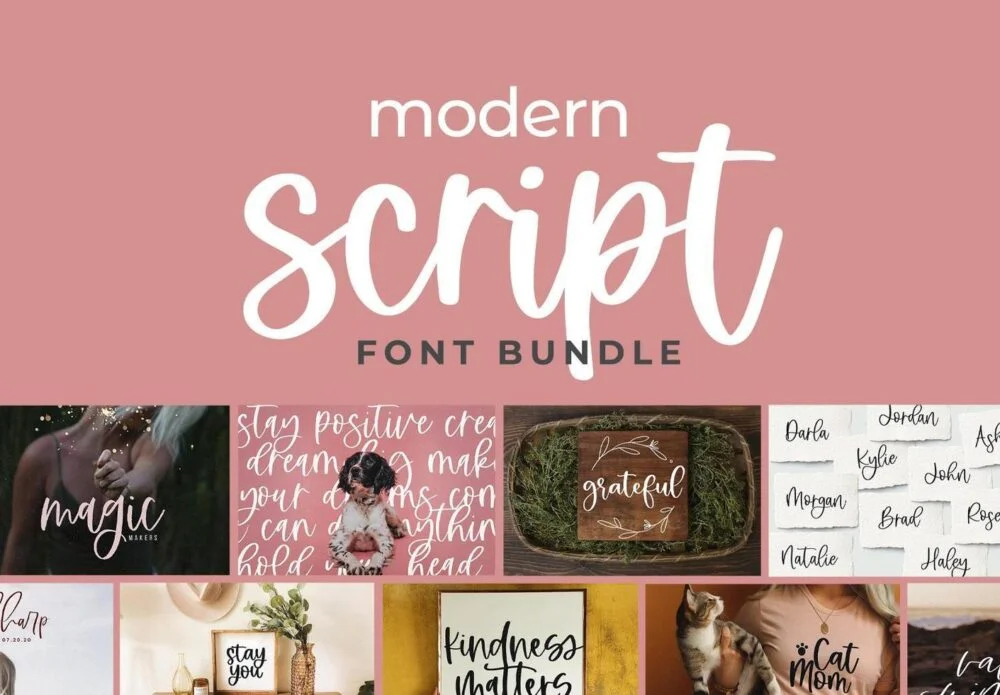
Modern Script Fonts Bundle 25 incredible script fonts to your arsenal with this bundle that has a total value of $300. Each font was expertly crafted for an authentic modern calligraphy handwritten style. With these typefaces in your toolbox, you’ll be able to create beautifully handwritten text any time you want.
These fonts are not only gorgeous, but they’re also easy to read. Each font comes in both OTF and TTF format. You’ll get fonts with thin strokes, thick strokes, and brush strokes.
Modern Script Fonts Bundle is extremely helpful for designing wedding invitations, signs, quotes, posters, social media images, branding, product labels, packaging, crafty projects, and more. This bundle gives you all the script fonts you’ll ever need.
- Tangerine Font
- Maybird Font
- Girlfriend Font
- Clarity Font
- Barley Font
- Stillness Font
- Mountains Font
- Wildcat Font
- Moonline Font
- Silverway Font
- Smitten Font
- Islander Font
- Maybe Font
- Melbourne Font
- Tropical Coast Font
- Kindness Font
- Kindheart Font
- Happiness Font
- Marigold Font
- Ocean Cabanna Font
- Free Spirit Font
- Firefly Font
- Bluebird Font
- Honeybun Font
- Heartland Font